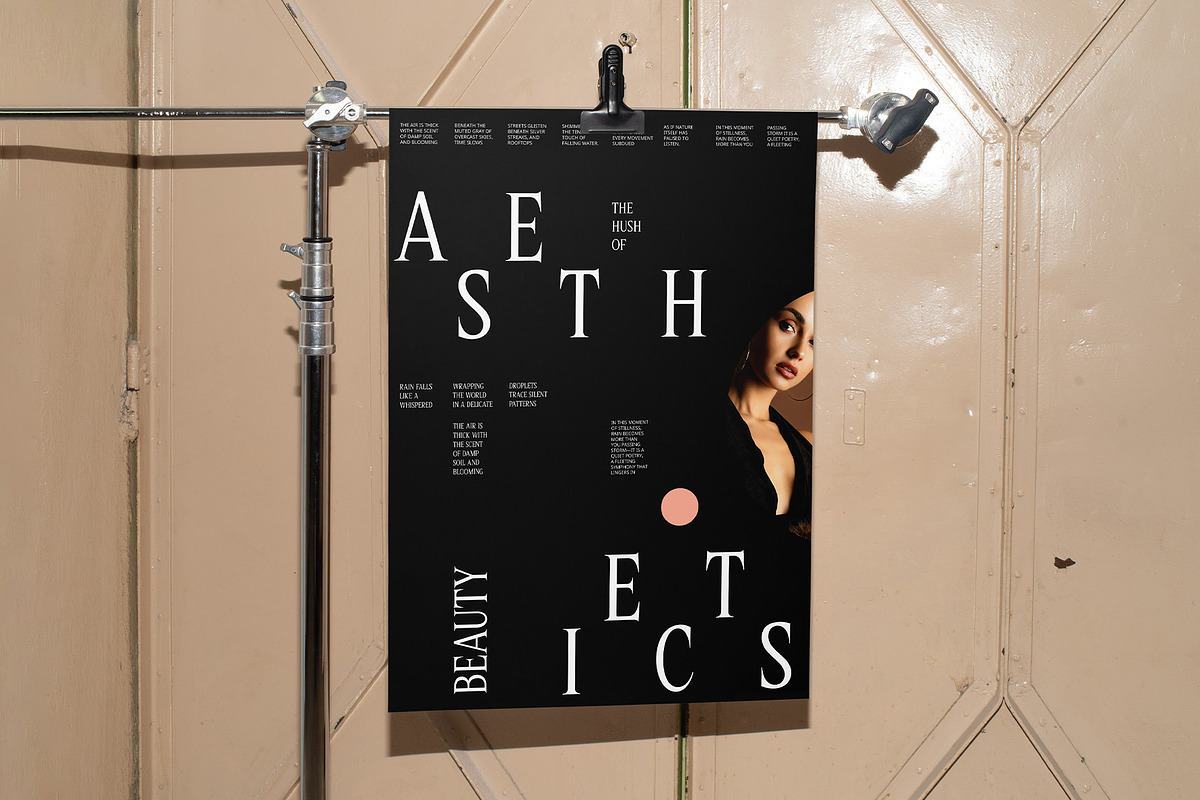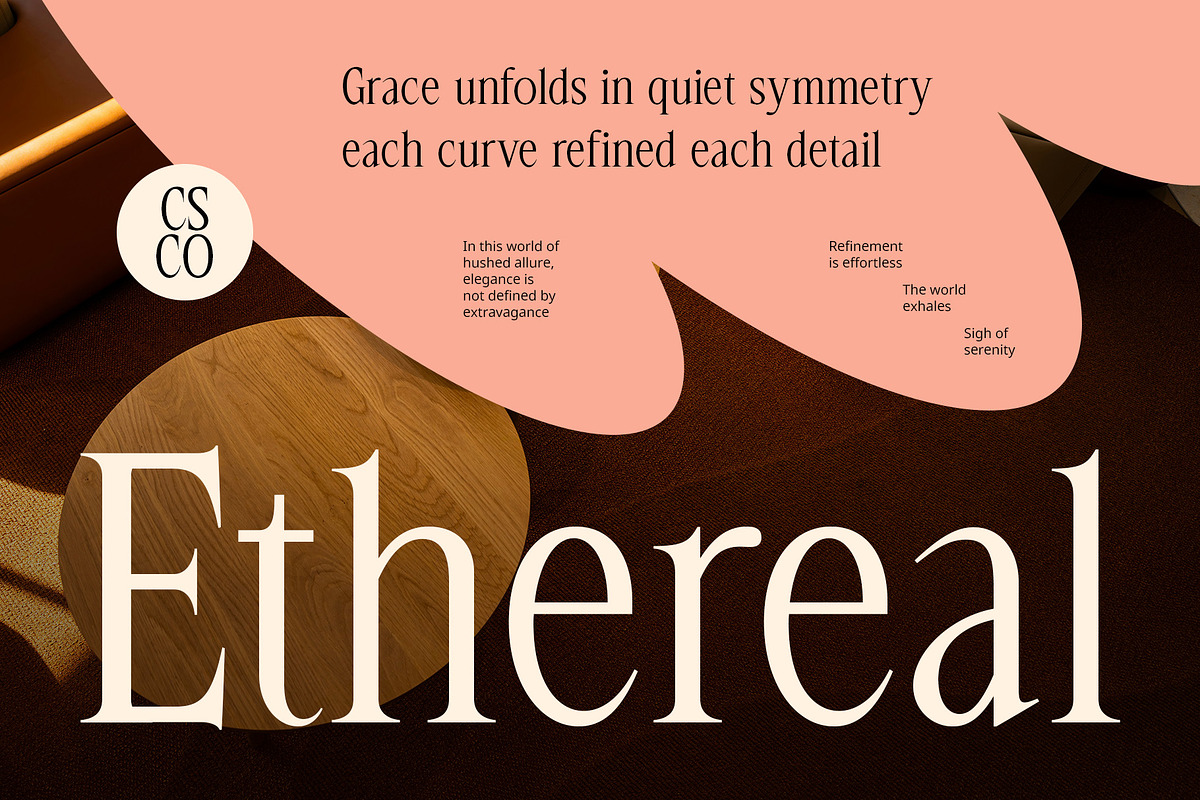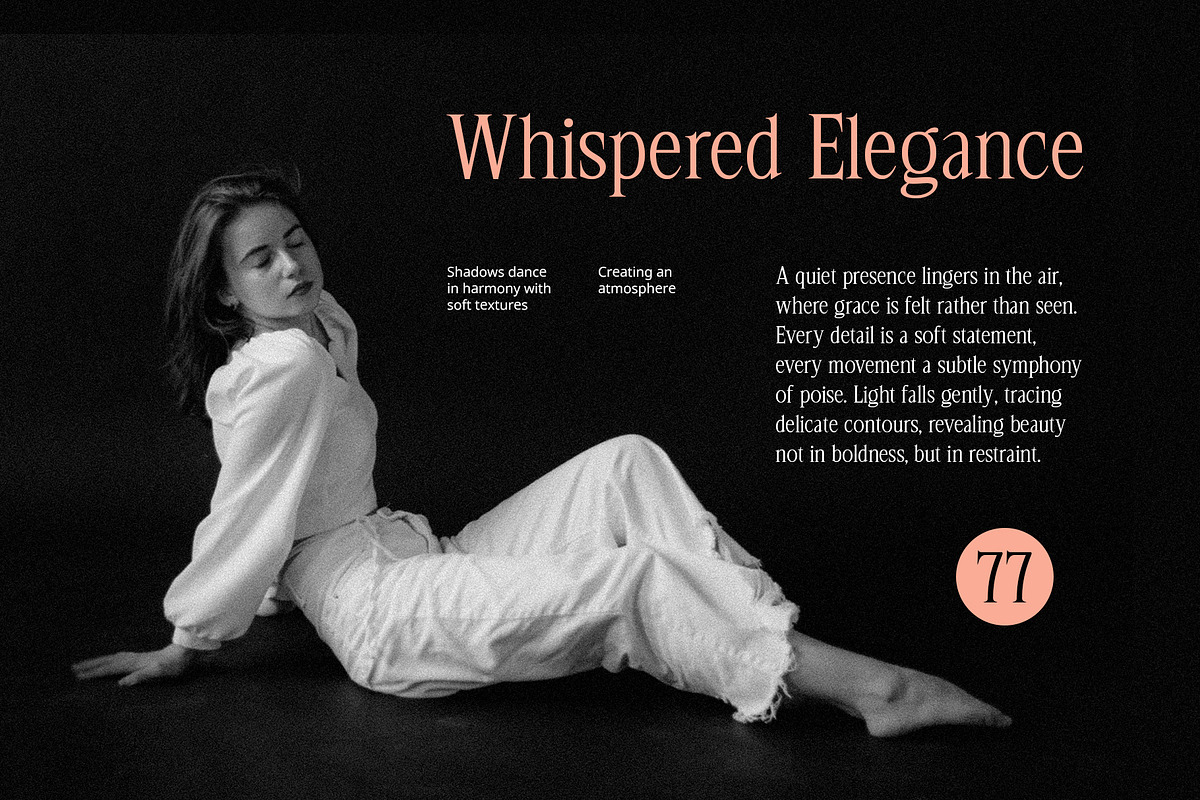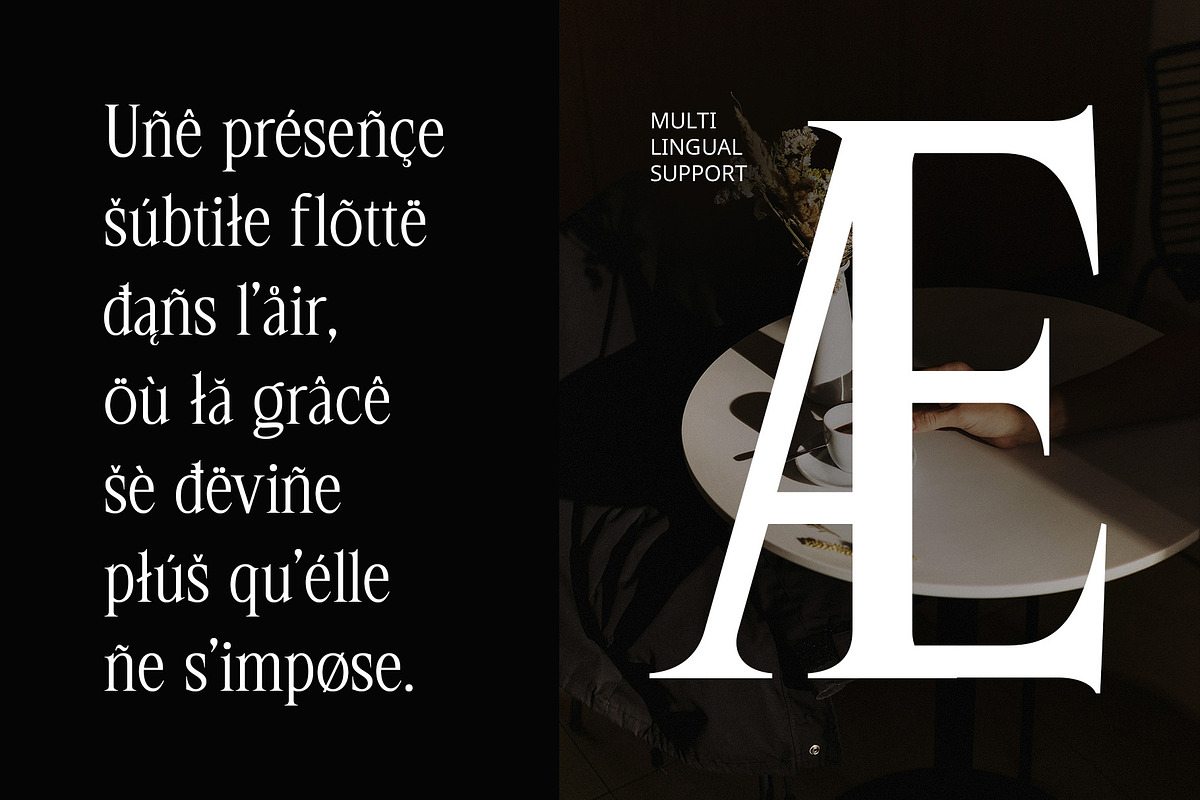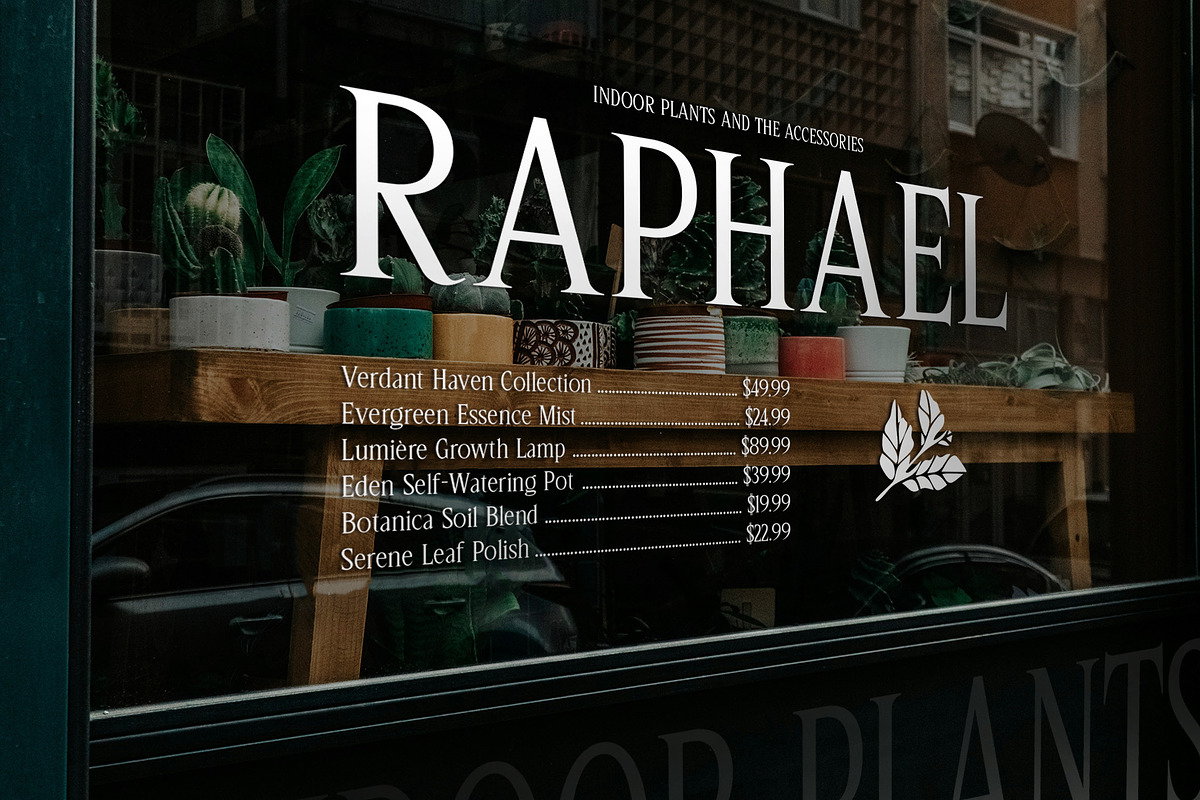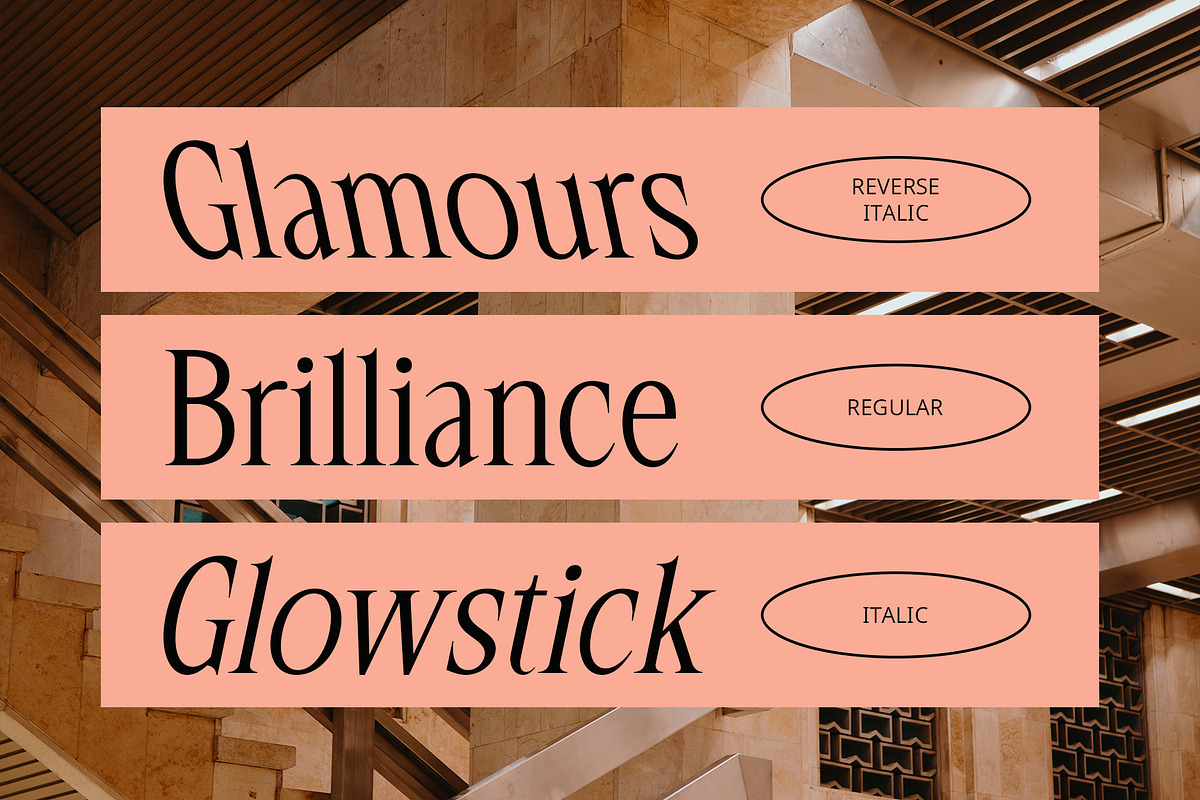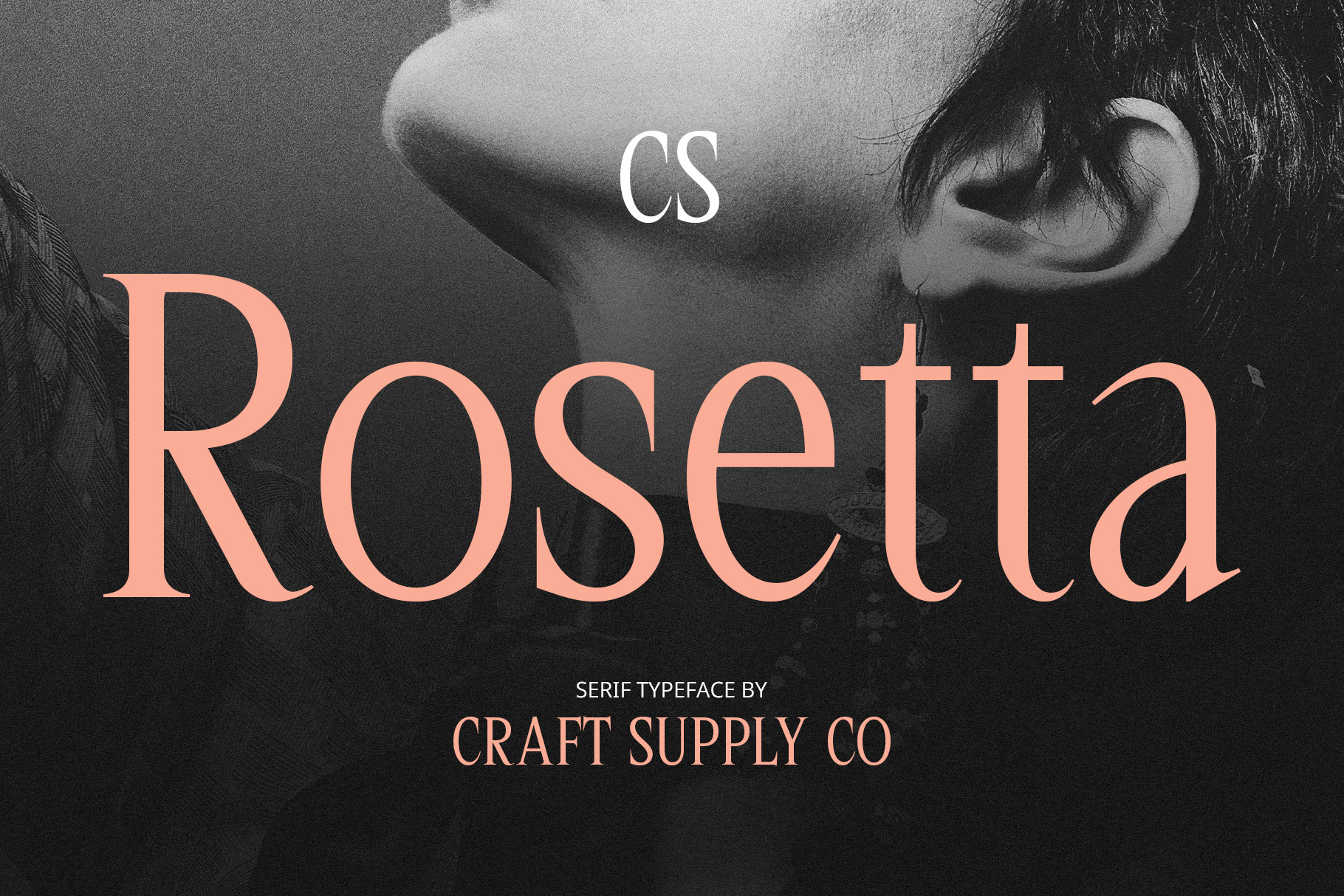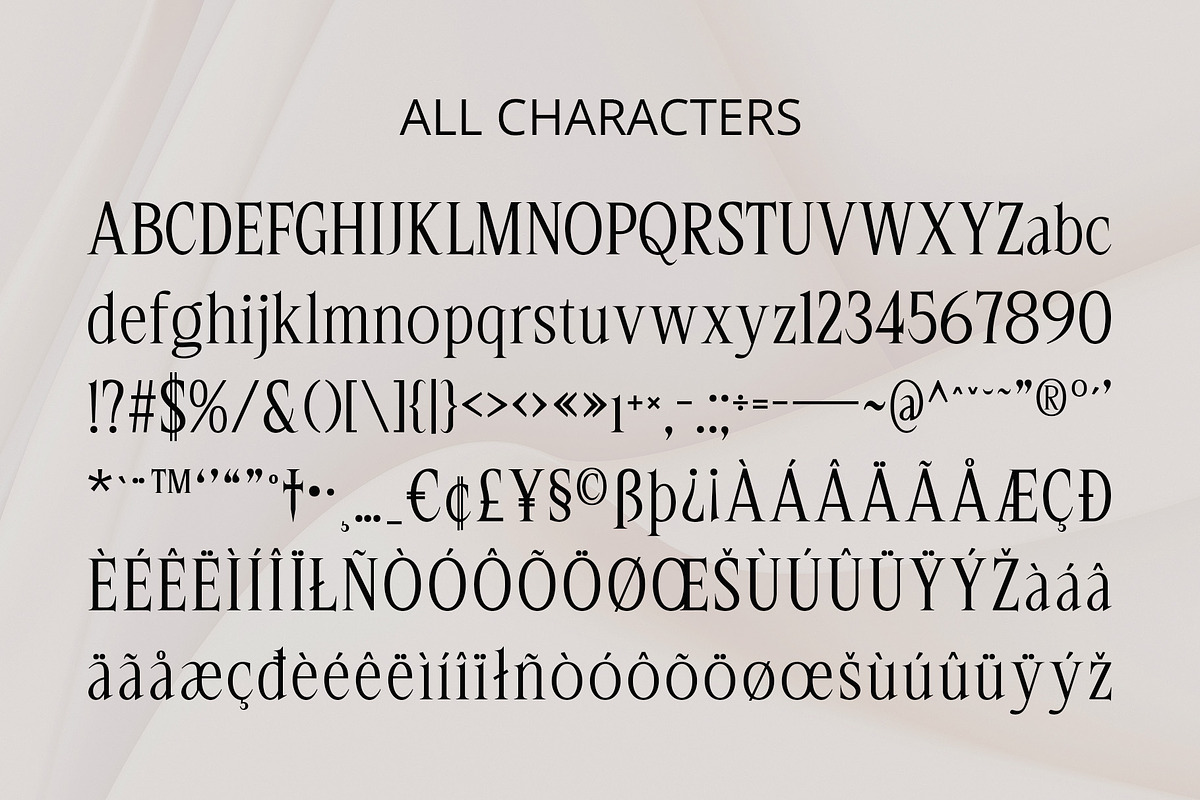
CS Rosetta – Classic Font
CS Rosetta – Classic Font with a Contemporary Edge
Modern Serif Font with Elegant Long Serifs CS Rosetta is a modern serif font that captures the essence of classic typography while embracing a fresh, contemporary flair. Its distinctively elongated serifs lend a refined and graceful character, perfect for designers who seek a balance between tradition and innovation.
Proportional Forms for Elegant Readability Crafted with clean lines and well-balanced proportions, CS Rosetta ensures readability while maintaining a luxurious tone. The subtle contrast and sophisticated letter structure make it ideal for delivering clear, impactful messages in elegant settings.
Perfect for Editorial and Premium Design CS Rosetta shines in editorial layouts, fashion magazines, premium branding, product packaging, and more. It communicates elegance, authority, and trust—perfect for brands and creatives aiming to make a bold and tasteful statement. Designed for high-end applications, CS Rosetta excels in editorial layouts, premium branding, and sophisticated visual presentations. Whether you’re working on fashion magazines, upscale packaging, or branding materials, this font exudes authority and style.
Timeless Sophistication Meets Modern Clarity CS Rosetta seamlessly merges the grandeur of traditional serif fonts with minimalist modern design. Its stylish long serifs and clean forms create a timeless typeface that adds a touch of class to any creative project, ensuring a lasting and polished impression.
- CS Rosetta Regular
- CS Rosetta Italic
- CS Rosetta Reverse Italic